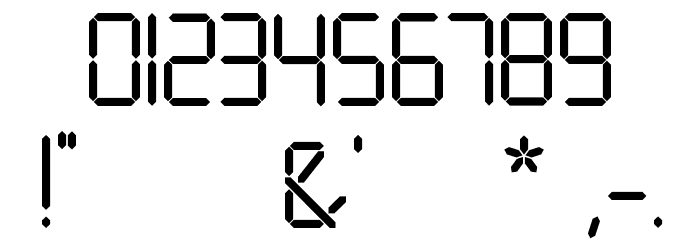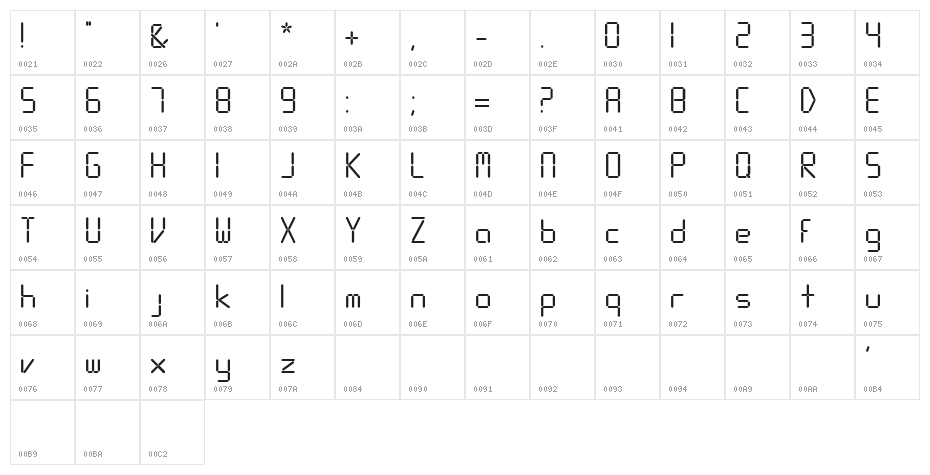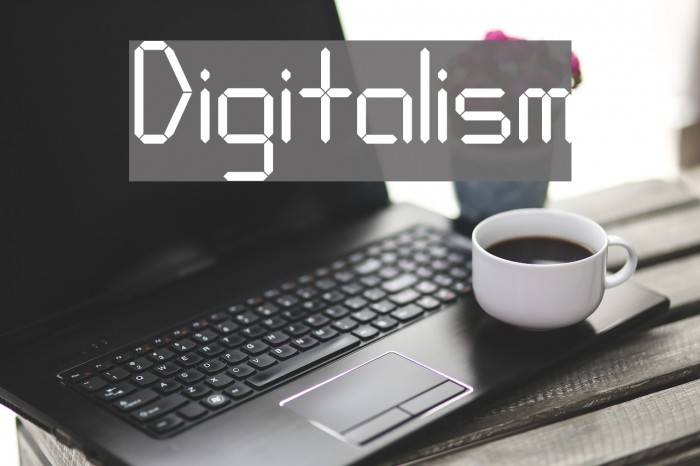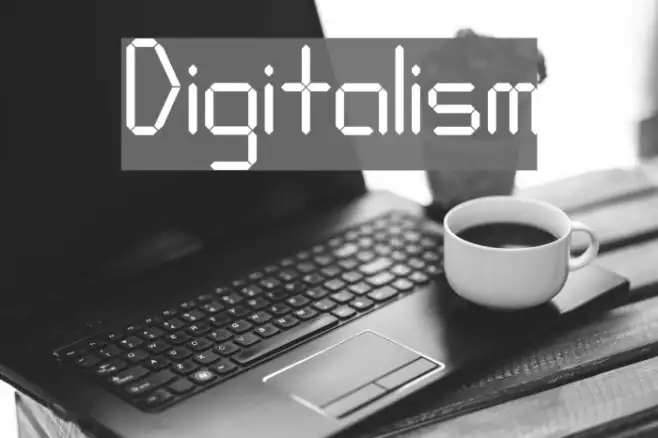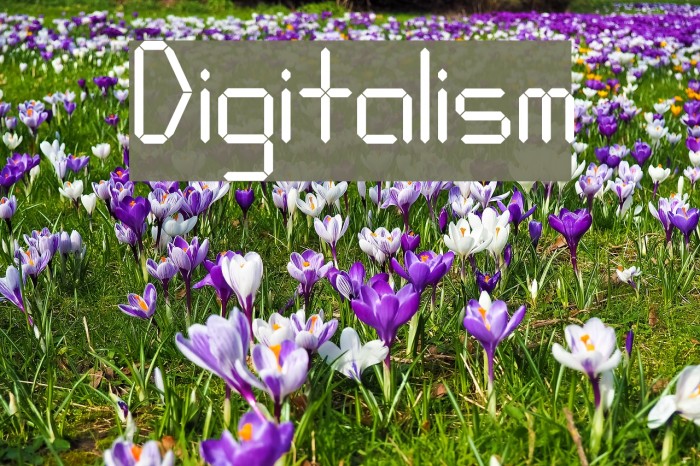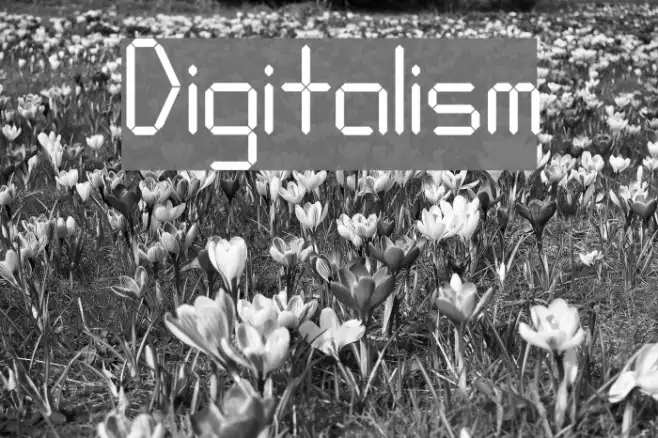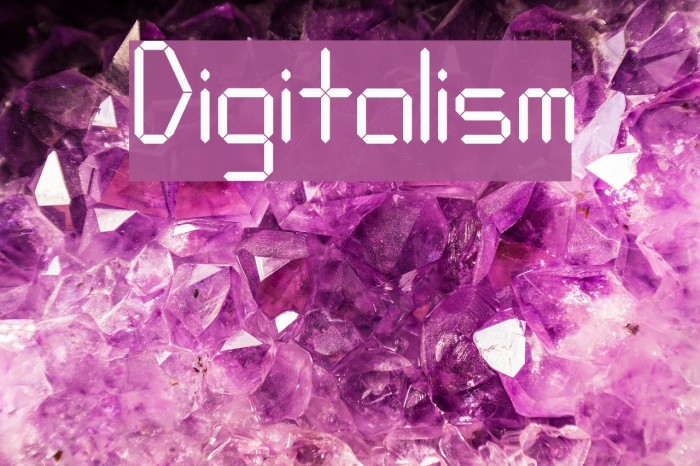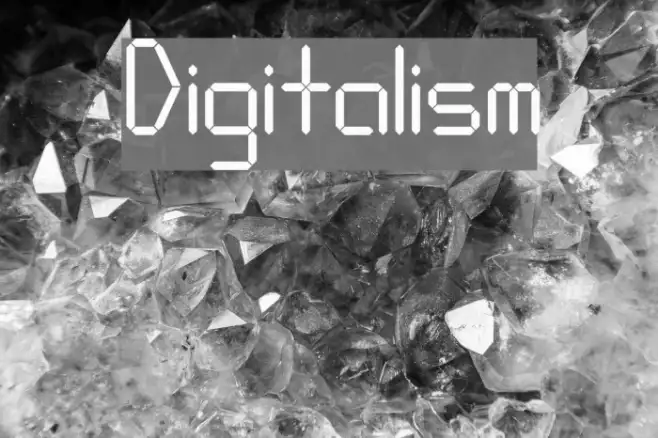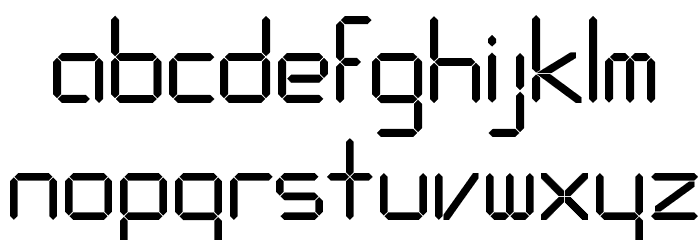
Digitalism Font
Digitalism Description
This font features a futuristic and digital aesthetic, characterized by its geometric and segmented letterforms. Each character is composed of straight lines and angles, resembling the appearance of digital displays or circuit patterns. The uppercase and lowercase letters maintain a consistent style, with a uniform height and width that enhances readability. The numerals and special characters follow the same design principles, ensuring a cohesive look across all glyphs. The font's unique style makes it stand out, offering a modern and tech-inspired vibe.
| Proposed Projects | Ideal for technology-related projects, digital interfaces, video game design, and futuristic branding. |